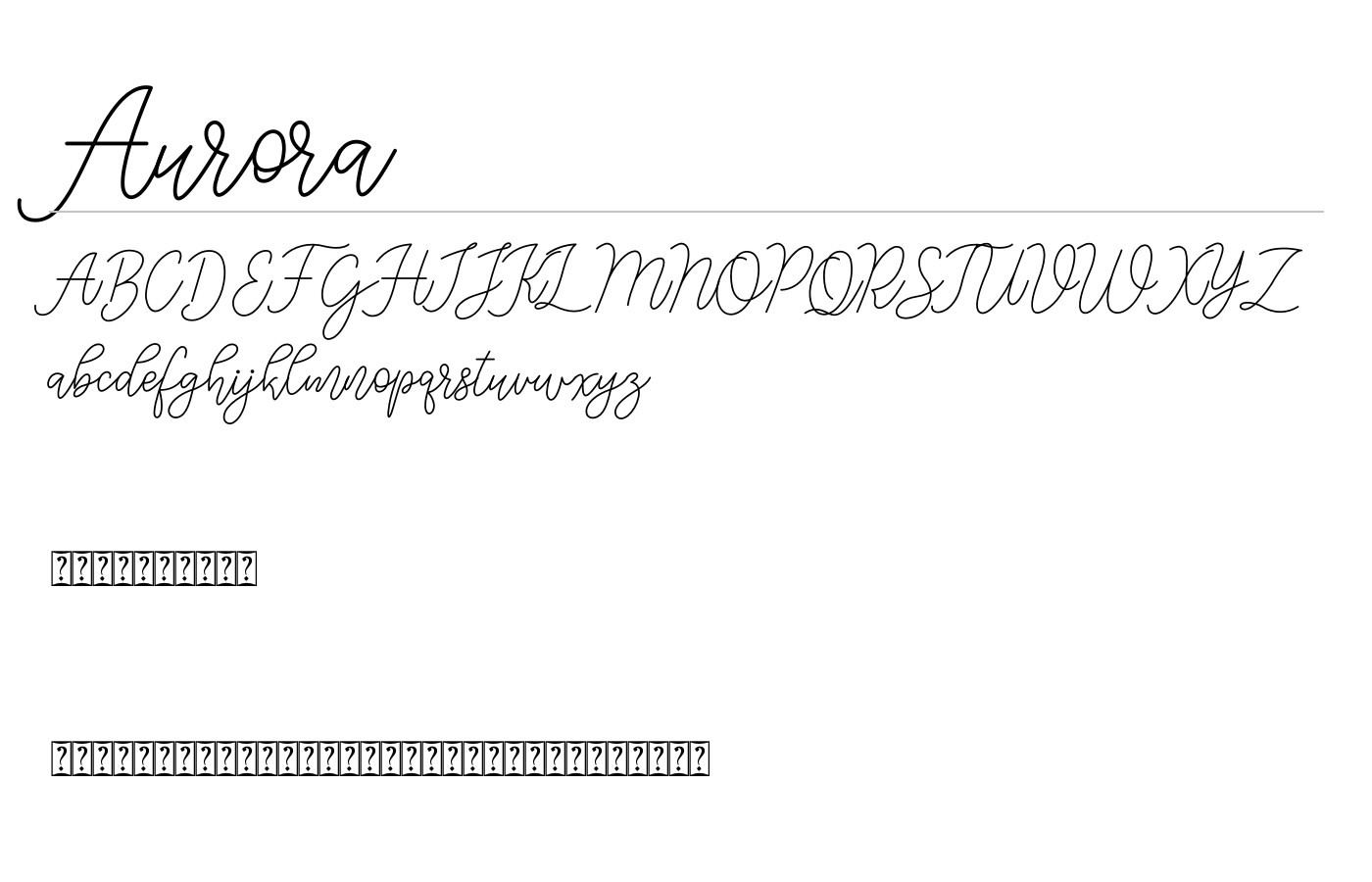
Aurora is a delicate, elegant script font featuring smooth, flowing lines and a light weight that evokes a handwritten feel. Its graceful, cursive letterforms with high x-height and subtle flourishes make it ideal for stylish branding, invitations, and feminine design projects where a touch of sophistication and warmth is desired. This font works best for logos and headlines that require a personal, refined touch rather than dense body text.
Aurora Font